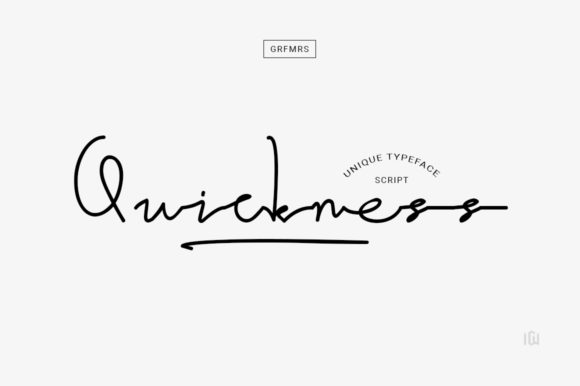
Quickness Font: Elegant Script for Handmade Products
Using Quickness Font for Wedding Invitations and Stationery
When selecting the perfect typeface for wedding stationery, Quickness is an exquisite handwritten font that masterfully designed to become a true favorite among invitation designers and paper crafters. This Script Handwritten style maintains its classy calligraphic influences while feeling contemporary and fresh, making it ideal for couples who want traditional elegance with a modern twist. For those of us creating wedding suites, readability is just as important as beauty, and this font delivers both in spades. The letterforms are distinct enough to be read easily on RSVP cards and details cards, yet fluid enough to convey the romance required for the main invitation.
I have found that Fonts like Quickness work exceptionally well when used for the couple’s names or the "We Invite You" header, while pairing beautifully with a clean sans serif font for the logistical text. This contrast ensures that the design remains accessible to older guests while still looking high-end. Because the strokes have a natural weight variation, they hold up beautifully during the printing process, whether you are using a home inkjet printer for DIY invites or sending files to a professional letterpress shop. The contemporary flow prevents the design from looking dated, ensuring your portfolio pieces feel current and desirable to modern brides.
Creating Readable Product Labels with Quickness Script Handwritten
For small business owners and makers, legibility on packaging is non-negotiable, and Quickness serves as a premium font choice for artisanal product labels. When I design labels for candles, soaps, or boutique skincare, I need a Script Handwritten typeface that suggests luxury without sacrificing clarity at small sizes. Quickness fits this niche perfectly because its contemporary structure avoids the overly ornate loops that often cause ink bleed or cutting issues on vinyl stickers. The font feels personal and handcrafted, which increases the perceived value of handmade goods and helps establish a cohesive brand identity across different product lines.
When applying this font to physical products, consider the material texture. On matte paper or kraft tags, the crisp lines of Quickness provide excellent contrast, making the product name pop. For clear labels on glass jars, the font’s balanced weight ensures visibility against varying background colors. It is particularly effective for short phrases like "Hand Poured," "Small Batch," or signature scents. As one of the most versatile Fonts for packaging, it bridges the gap between rustic charm and modern minimalism, allowing sellers to appeal to a broader demographic without redesigning their entire label template.
Designing Digital Printables and Wall Art with Quickness
Digital download creators will appreciate how Quickness translates seamlessly from screen to print, making it a staple for printable wall art and planner accessories. In the competitive marketplace of digital goods, having a unique visual voice is essential, and this Script Handwritten font offers that distinctive character buyers search for. Whether you are designing motivational quotes, nursery decor, or seasonal calendars, the contemporary freshness of the lettering keeps designs from looking generic. The font’s exquisite details render sharply at high resolutions, ensuring that customers receive a quality product that looks professionally typeset even when printed at home.
For SVG-style designs intended for cutting machines, the connectivity of the letters in Quickness is generally smooth, reducing the number of nodes and making weeding easier for Cricut and Silhouette users. However, always test cut a sample first, especially if utilizing any included swashes or alternates. When creating social media graphics or Pinterest pins to market these printables, the font acts as a powerful hook; its stylish appearance stops the scroll and encourages clicks. By integrating this typeface into your digital asset library, you can maintain a consistent aesthetic across your Etsy shop, Instagram feed, and email newsletters, reinforcing brand recognition through typography.
Fresh Typography for Apparel and Merchandise Design
Apparel designers and POD sellers often struggle to find script fonts that don't look stiff, but Quickness brings a natural movement that looks fantastic on t-shirts, tote bags, and sweatshirts. The key to successful merchandise design is emotion, and this exquisite handwritten font evokes a sense of warmth and authenticity that resonates with shoppers. Unlike rigid display fonts, the organic flow of this Script Handwritten style mimics actual penmanship, making slogans and names feel personally addressed to the wearer. This emotional connection is vital for converting browsers into buyers in the crowded custom apparel market.
When designing for fabric, consider the production method. For screen printing, the solid lines of Quickness reproduce cleanly without losing detail. For heat transfer vinyl (HTV), the font’s contemporary spacing allows for easy layering with other elements like icons or borders. It works particularly well for personalized gifts, such as bridal party robes or family reunion shirts, where the combination of elegance and readability is paramount. Pairing this script with a bold sans serif font creates a dynamic hierarchy that guides the eye, ensuring the message is understood instantly. Remember to check the commercial licensing terms before selling merchandise, as proper licensing protects your business and supports the type designer.
Font Pairing Strategies Using Quickness and Sans Serif Fonts
Achieving professional design results often depends on how well you combine typefaces, and Quickness pairs effortlessly with minimalist sans serif Fonts to create balanced layouts. The inherent complexity of this Script Handwritten font demands a supporting actor that provides breathing room; a geometric or humanist sans serif is usually the best match. This combination is crucial for projects like event signage, where the decorative font captures attention and the simple font conveys information. The contemporary nature of Quickness means it doesn't clash with modern type families, avoiding the disjointed look that can occur when mixing vintage scripts with ultra-modern text.
Consider the mood you wish to evoke when selecting your secondary font. For a soft, feminine aesthetic, pair Quickness with a rounded sans serif or a light-weight serif font. For a more editorial or high-fashion vibe, use a stark, condensed sans serif to create dramatic contrast. This versatility makes the font a valuable asset in your creative toolkit, capable of adapting to various client briefs and personal projects. Always preview your pairings at actual size before finalizing a design; what looks good zoomed in on a monitor may need adjustment in tracking or leading when applied to a physical business card or large-format poster. Testing ensures that the classy calligraphic influences remain legible and harmonious within the overall composition.
Additionally, familiarize yourself with the file formats included with your purchase, typically OTF, TTF, and sometimes WOFF for web use. OTF files are generally preferred for design software like Illustrator and InDesign because they support advanced OpenType features such as ligatures, contextual alternates, and swashes that enhance the Script Handwritten aesthetic. These features allow you to customize the flow of the text, making each instance of Quickness look unique rather than repetitive. For Cricut Design Space or Silhouette Studio, TTF files are often more compatible and easier to manage. Checking for multilingual support is also wise if you serve international clients or create bilingual stationery, ensuring that the font’s beauty extends beyond English characters. Investing time in understanding these technical and legal aspects ensures that your creative business runs smoothly and professionally.